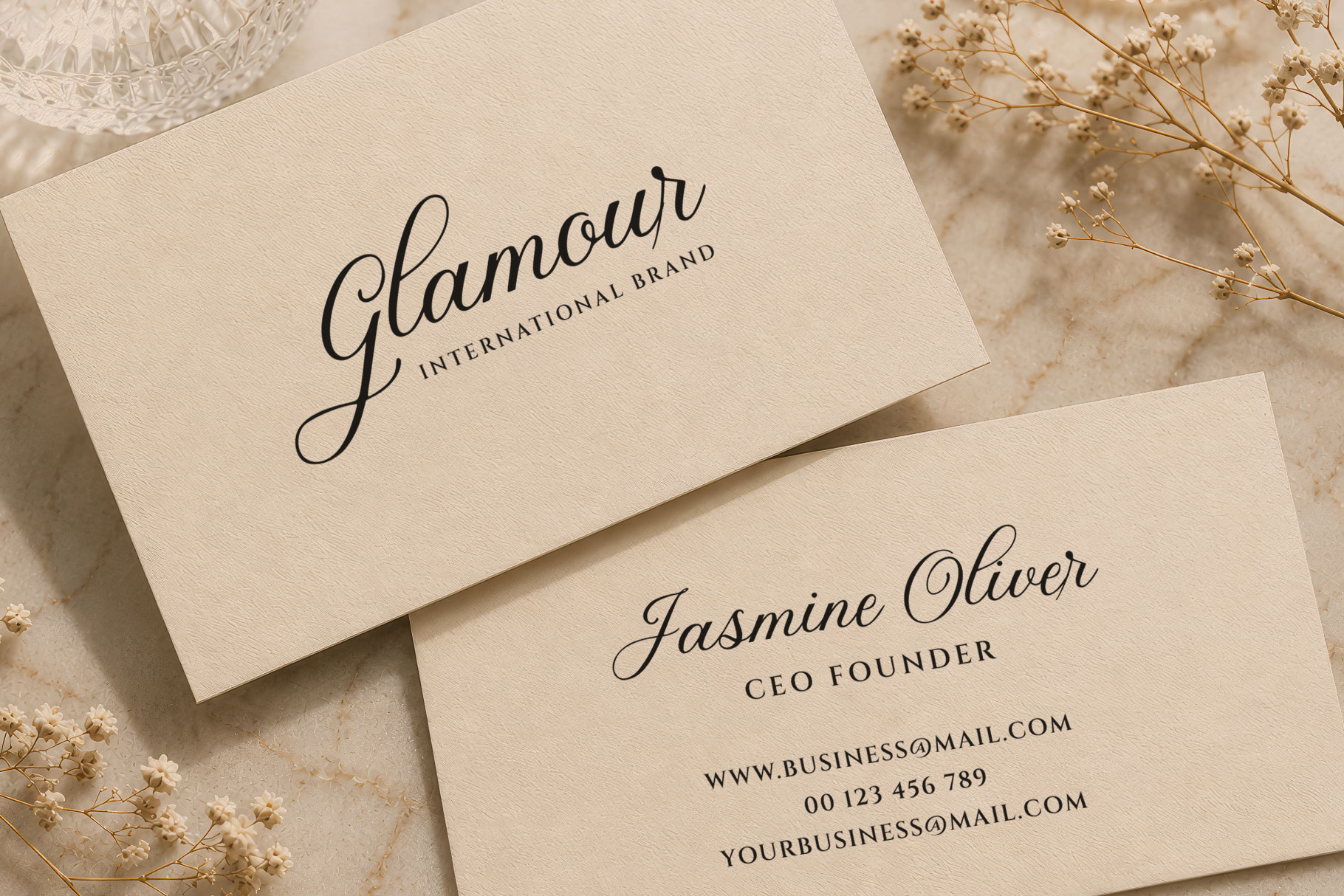
Madison Rosely is Calligraphic script font embrace grace and feminity. Madison Rosely is a perfectly choice for any creative endeavor, creating, modern, lifestyle design such as logotype, title, cover, branding, invitations, wedding designs, display and magazine, social media posts, advertisements, printed quotes, product packaging, corporate brand, wedding invitations, product designs, labels, photography, watermarks, special events and any other project with elegant touch.
Madison Rosely Calligraphic Script Font